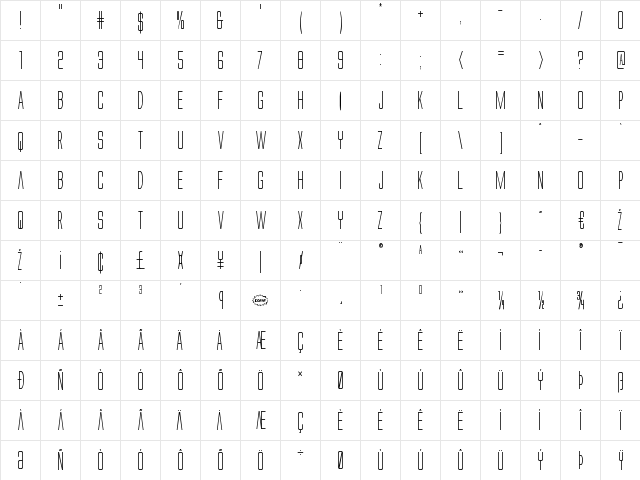
Alien League II Condensed Condensed
Design Context for Alien League II Condensed Typeface
Alien League II Condensed offers clean, dependable letterforms without strong stylistic allegiance, making it a practical choice for designers who need flexibility. Its narrow stance lets it pack a punch even in space-constrained designs.